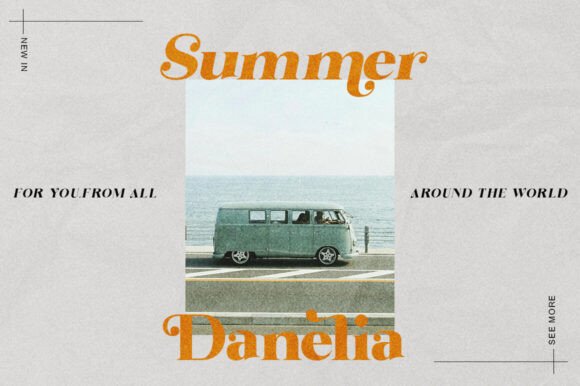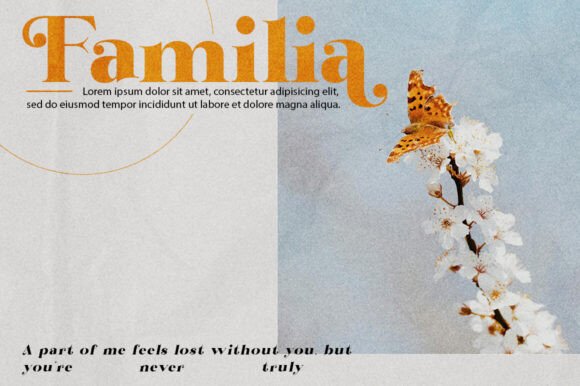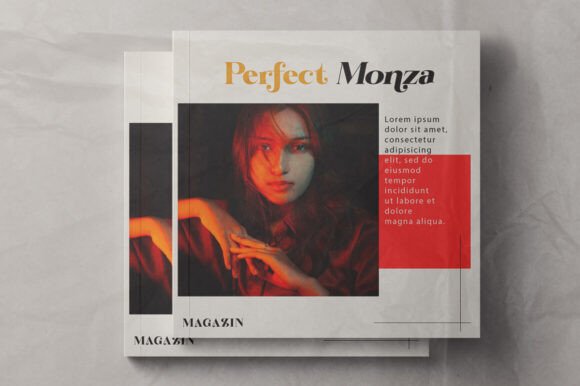
Bintro Font: Elegant Serif Typography for Modern Branding & Logo Design
About the Bintro Font
Crafted with precision, the Bintro Font is ready to bring your ideas to life. The Bintro font is a serif typeface characterized by its elegant, classic, and sophisticated style. Its distinctive feature lies in the small decorative strokes or “serifs” at the edges of the letters, making it suitable for editorial design, branding, and creative projects that aim to convey a luxurious and professional impression. Bintro is often used for headlines, logos, or visual elements requiring strong visual appeal.
Bintro Font Usage Examples
Bintro Font Example